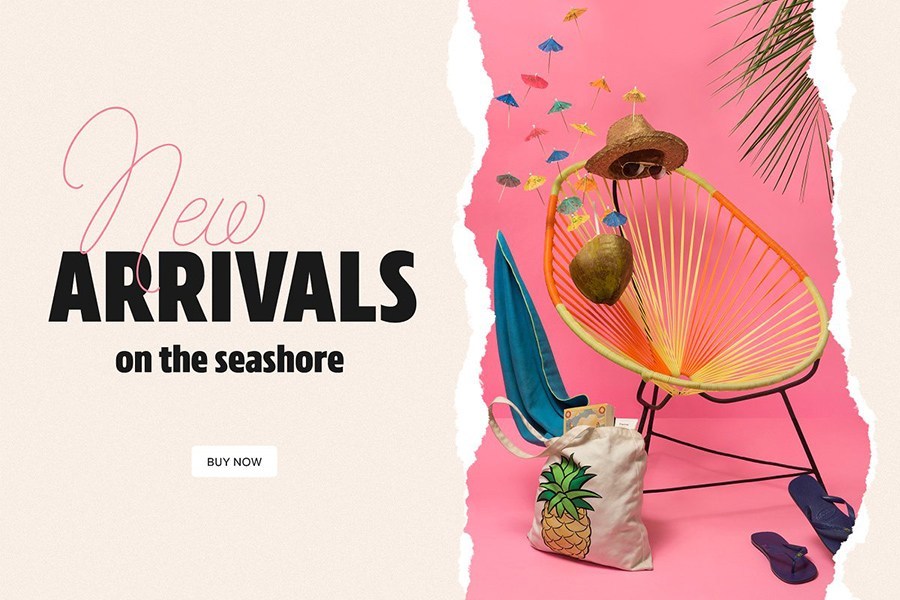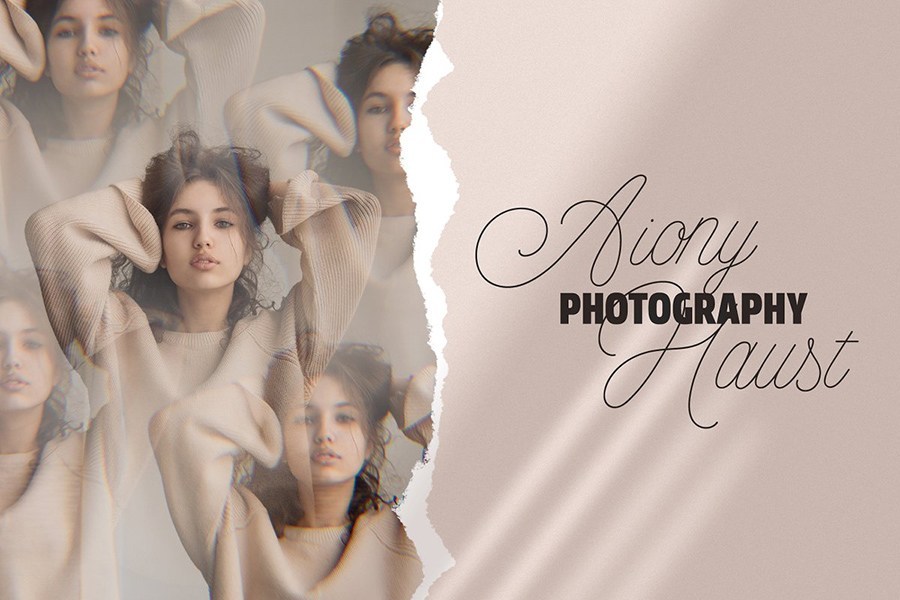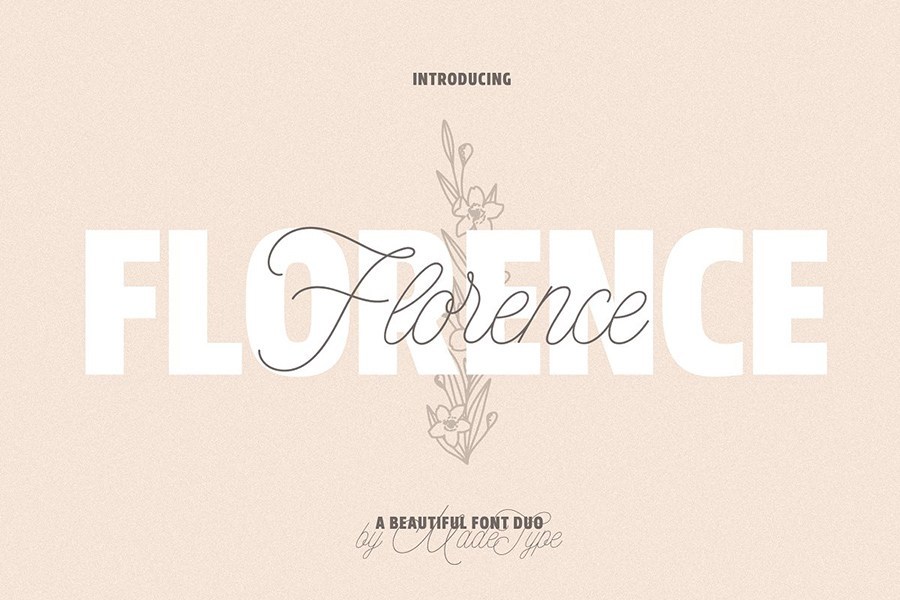
MADE Florence Font Duo is here! Coming to you from the latest work of MADE Type, this font duo appears beautiful together and complements each other. As you can see, Florence will perfect for many kinds of design projects. It works well in fashion magazines, logo, branding, photography, wedding invitations, quotes, blog header, posters, advertisements, etc.